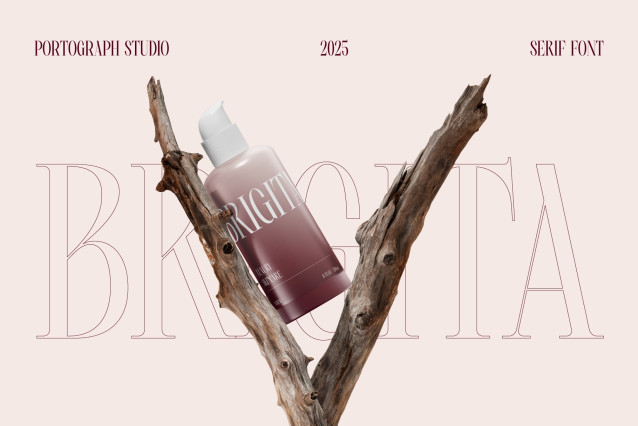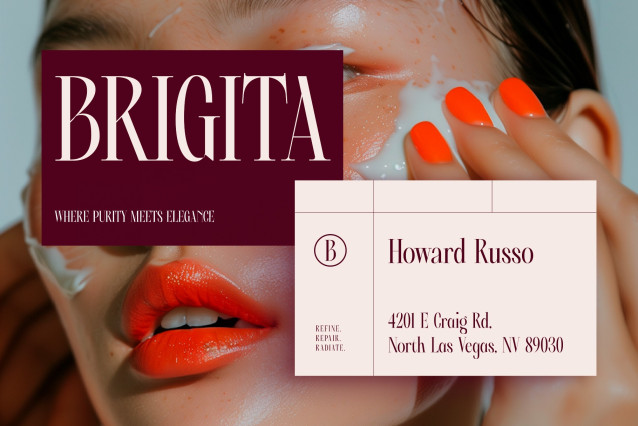
Ptg Brigita Font
Ptg Brigita Font is an elegant serif display font designed by Portograph Studio. With its refined contrast, high-fashion proportions, and graceful curves, Brigita exudes sophistication and femininity. It merges timeless serif traditions with modern luxury appeal, making it perfect for upscale branding and editorial design.